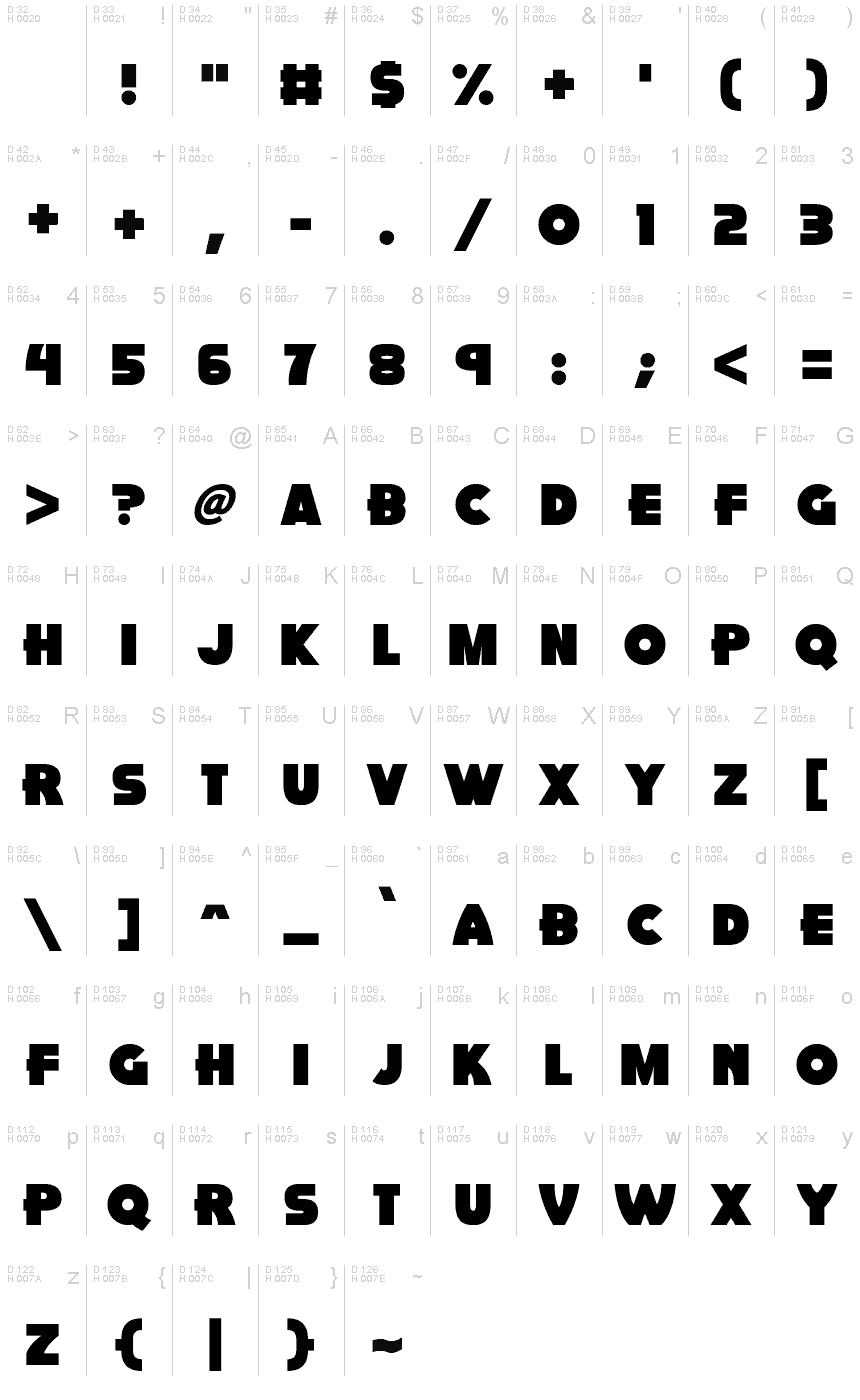
Pink Rocket
Pink Rocket is a bold, eye-catching display font that exudes a sense of energy and dynamism. Designed by Hawtpixel, this font features sharp, angular letterforms that evoke the powerful thrust of a rocket soaring through the sky.
With its distinctive geometric shapes and striking, almost futuristic aesthetic, Pink Rocket is well-suited for a variety of design applications, from eye-catching headlines and logos to impactful packaging and branding.
Its bold presence commands attention, making it an excellent choice for projects that aim to make a strong visual impact.
With its distinctive geometric shapes and striking, almost futuristic aesthetic, Pink Rocket is well-suited for a variety of design applications, from eye-catching headlines and logos to impactful packaging and branding.
Its bold presence commands attention, making it an excellent choice for projects that aim to make a strong visual impact.